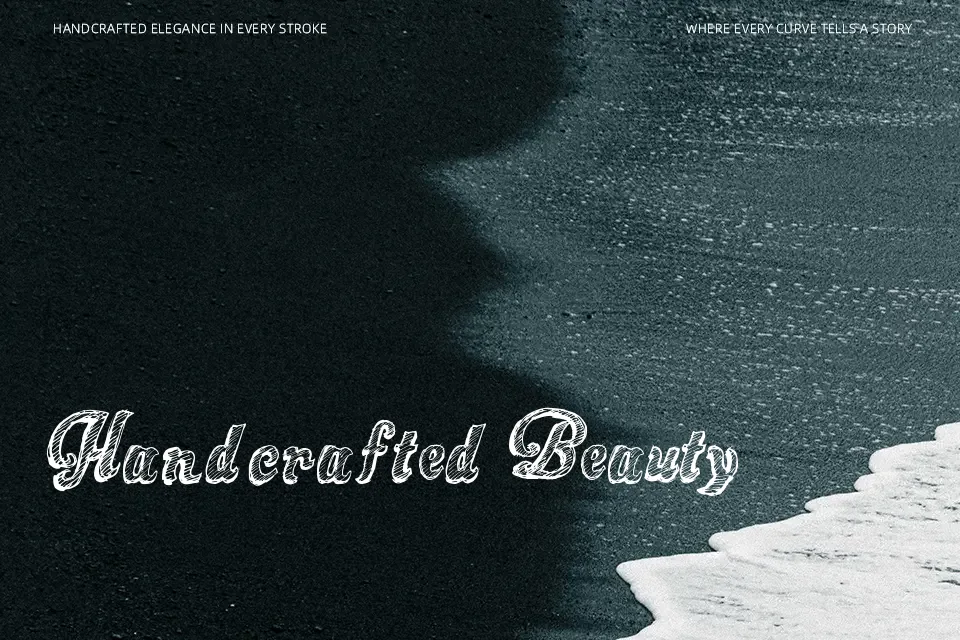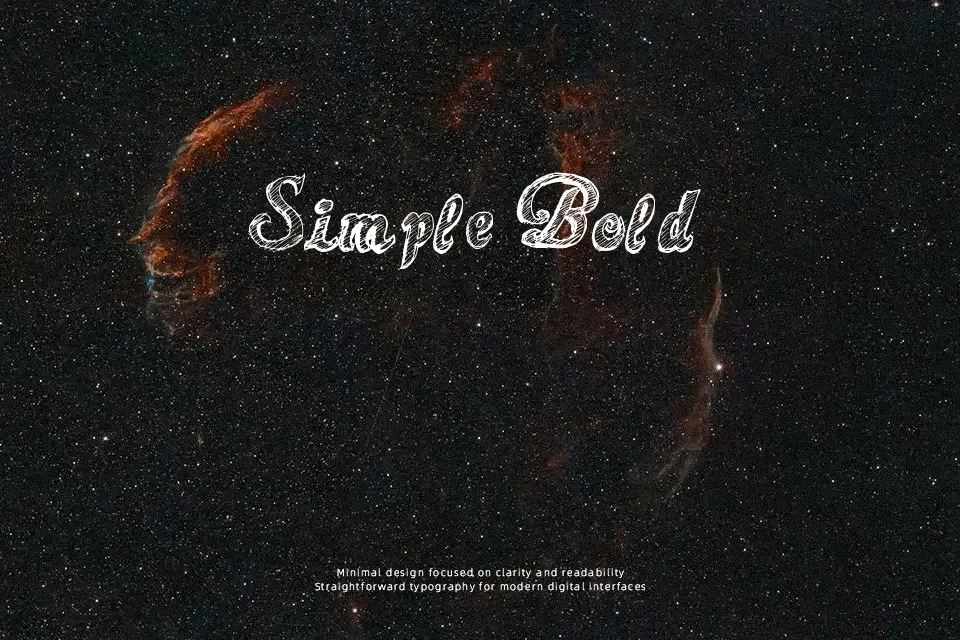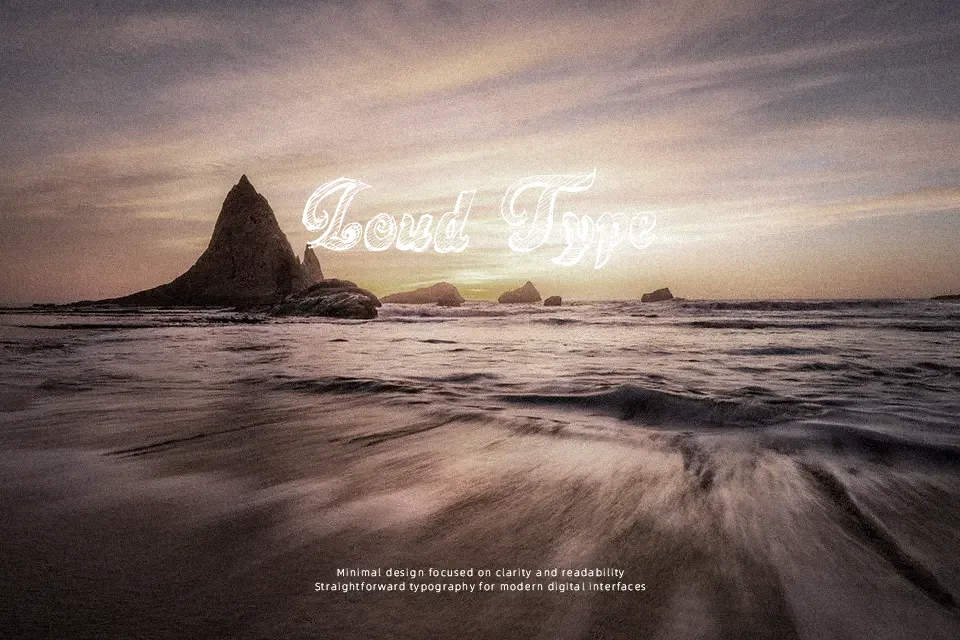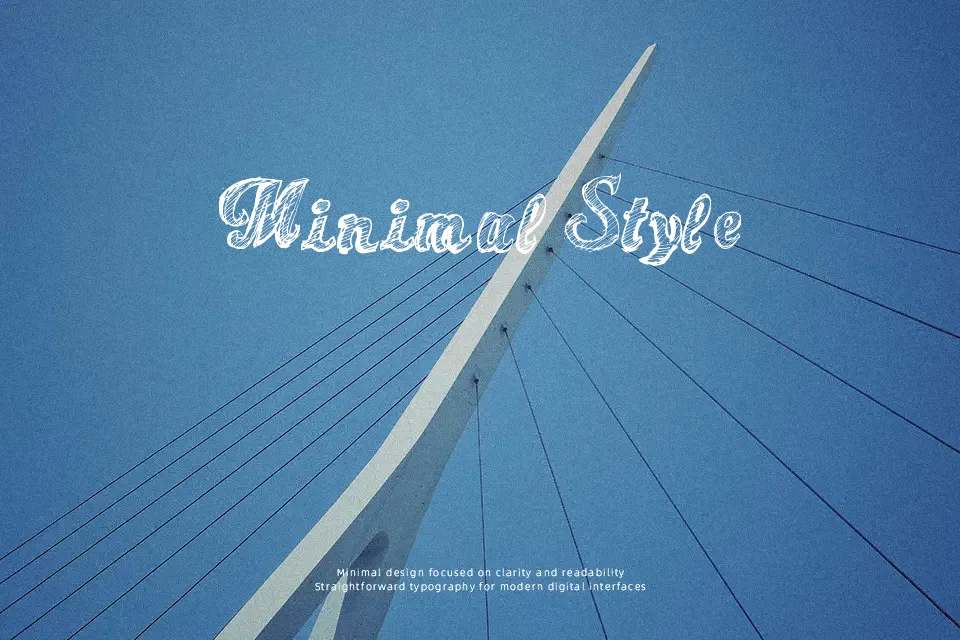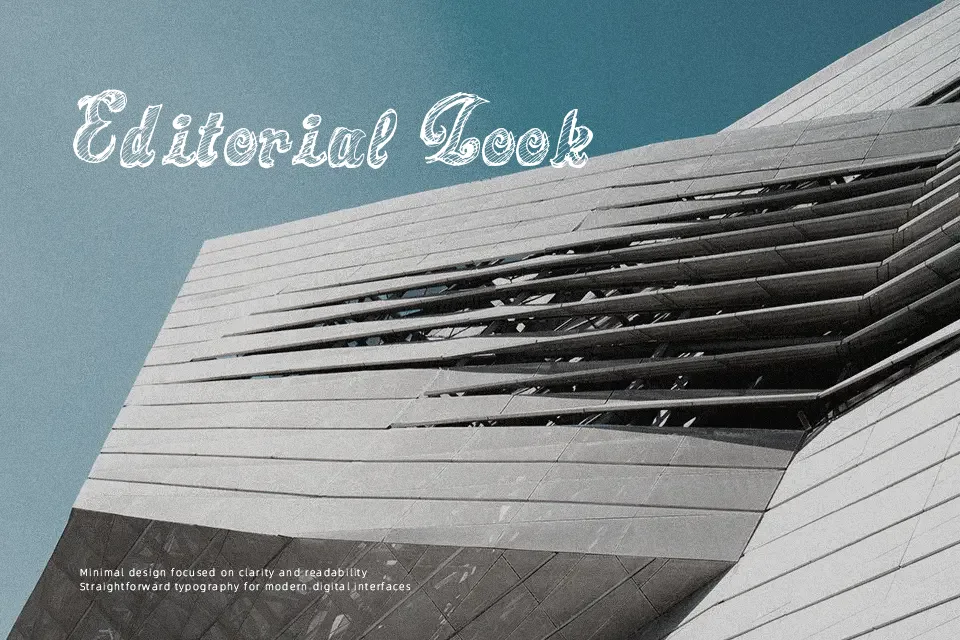
Sketch Toska Font
Built with dense diagonal sketch strokes inside bold outlines, Sketch Toska Font presents a textured, hand-crafted display appearance. The letterforms feature consistent cap heights and generous character widths, creating a rhythmic, illustrative texture across headline layouts. Moderate spacing prevents the internal hatched linework from blending together when viewed at substantial scale. While the design delivers immediate visual presence on merchandise graphics, event flyers, and cafe signage, the intricate stroke details quickly blur at smaller sizes. The dense shading significantly hinders readability in continuous text blocks, making the typeface far better suited for brief titles than running copy.
Best For: artisan product packaging, music festival posters, apparel graphic prints, illustrated book titles
Not Ideal For: continuous body text, legal contracts, mobile application interface labels, dense financial reports
Perfect for branding, headline, and packaging, with a artistic and decorative style.